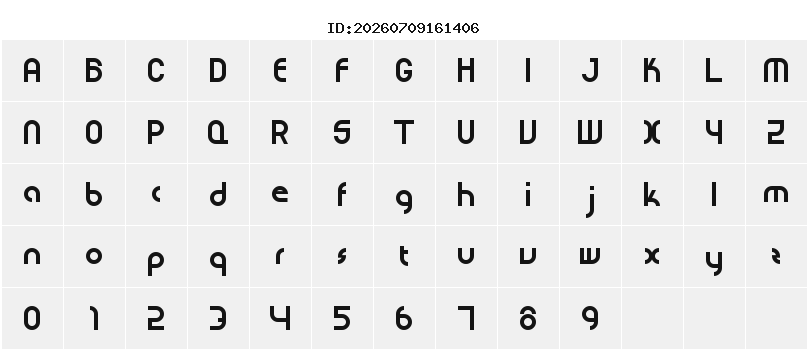
DLE Futuristic Preview
• Font Name: DLE Futuristic
• Font ID: DLE Futuristic
• Full Font Name: DLE Futuristic Regular
• PostScript Name: DLE-Futuristic
• Character Count: 105
• Copyright: Copyright Daniel Lyons 2015
• Designer: Daniel Lyons
• Description: ‚ÄúOwnhaus 15‚Äù was built with FontStruct ‚ÄúOwnhaus 15‚Äù is based on ‚ÄúOwnhaus‚Äù by ‚ÄúDaniel Lyons‚Äù (http://fontstruct.com/fontstructors/dlyons123)
About DLE Futuristic.ttf
DLE Futuristic.ttf is a modern, elegant sans-serif font designed for ultimate readability and visual harmony. Perfect for branding, headlines, web design, and print materials.